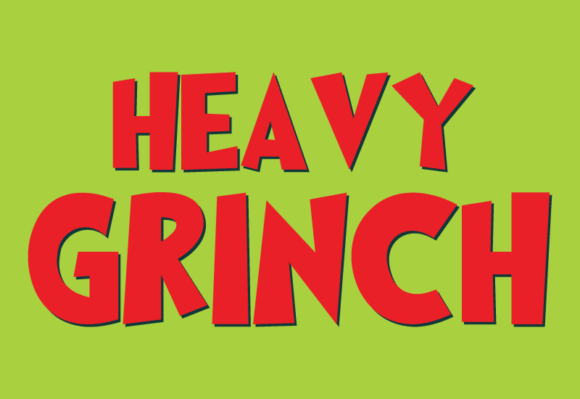
Bring the Magic of the Holidays to Life with Heavy Grinch Font
The holiday season is upon us, and with it comes the desire to create festive and fun designs that capture the spirit of Christmas. If you’re a designer or crafter looking for a unique and playful font to add to your projects, look no further than Heavy Grinch. This bold and whimsical Christmas font is inspired by the classic Grinch style and is perfect for bringing the magic of the holidays to life.
What is Heavy Grinch Font?
Heavy Grinch is a bold and playful Christmas font that is inspired by the beloved character from Dr. Seuss’s classic tale, “How the Grinch Stole Christmas.” The font features a fun and whimsical design, with thick lines and a chunky texture that gives it a unique and eye-catching look. The letters are bold and expressive, with a hint of mischief and playfulness that makes them perfect for festive designs.
Perfect for Festive Designs
Heavy Grinch is the perfect font for designers who want to create festive and fun designs for the holiday season. The font is ideal for a variety of projects, including:
- Festive Invitations: Use Heavy Grinch to create eye-catching invitations for holiday parties, Christmas events, and New Year’s Eve celebrations.
- Greeting Cards: Add a touch of whimsy and fun to your holiday greeting cards with Heavy Grinch.
- Holiday Banners: Create bold and eye-catching banners for your holiday displays with Heavy Grinch.
- Seasonal Branding: Use Heavy Grinch to add a touch of festive flair to your holiday branding and packaging.
Capture the Joyful Spirit of Christmas
Heavy Grinch is more than just a font – it’s a way to capture the joyful spirit of Christmas. The font’s fun and whimsical design makes it perfect for creating designs that are both festive and fun. Whether you’re creating cozy winter projects or cheerful holiday graphics, Heavy Grinch adds a unique and timeless charm that makes your typography stand out.
Why Choose Heavy Grinch?
So why choose Heavy Grinch for your holiday designs? Here are just a few reasons:
- Unique and Eye-Catching: Heavy Grinch is a bold and playful font that is sure to grab attention.
- Festive and Fun: The font’s whimsical design makes it perfect for creating festive and fun designs.
- Timeless Charm: Heavy Grinch has a timeless charm that makes it perfect for creating designs that will be cherished for years to come.
Tips for Using Heavy Grinch
Here are a few tips for using Heavy Grinch in your holiday designs:
- Pair with Other Fonts: Pair Heavy Grinch with other fonts to create a unique and eye-catching look.
- Use Bright Colors: Use bright and bold colors to make your designs pop.
- Experiment with Sizes: Experiment with different font sizes to create a visually appealing design.
- Add Graphics: Add graphics and illustrations to your designs to make them more festive and fun.